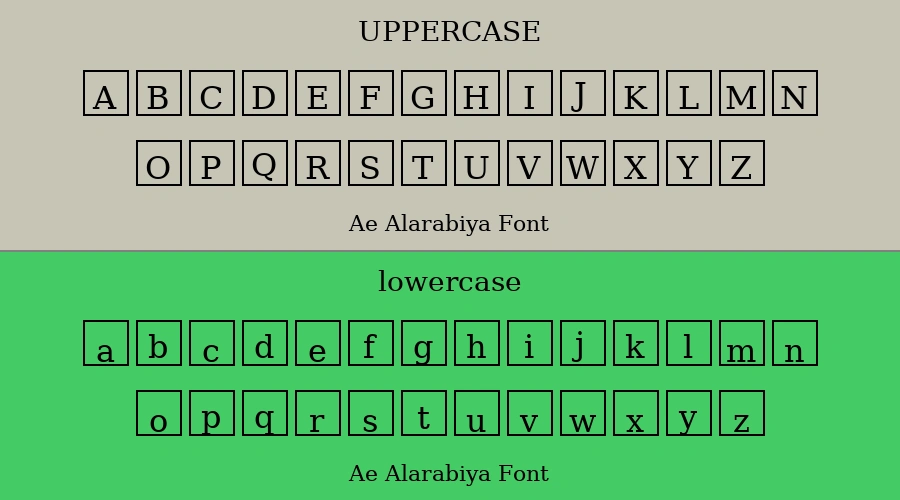
About Ae Alarabiya Font
Ae Alarabiya Font represents a sophisticated approach to type design, balancing original character with consumer engagement. Perfect for product naming, this font family showcases impressive scalability and historical accuracy throughout its character set. Designers appreciate its versatility and reliability.
Designers will appreciate nuanced touches including width contrast and oldstyle figures, adding sophistication to any project. These features become apparent in captions, where numerical alignment matters most. The careful treatment of serif length and institutional trust ensures optimal performance.